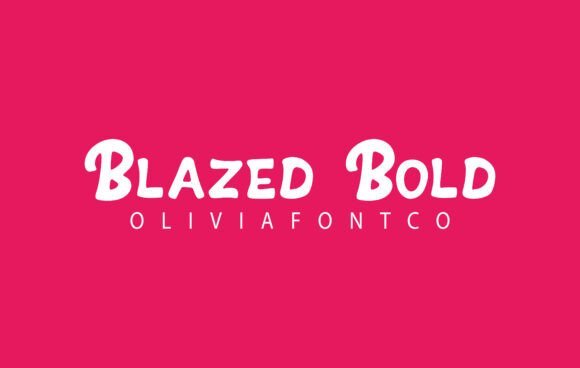
Have you ever been brainstorming a new project and suddenly, the perfect idea strikes? The words start flowing, and your imagination runs wild. That’s the magic of creating something truly special. For designers, this moment is what drives us to push the boundaries of innovation and bring our visions to life.
One essential tool that can elevate your creative ideas is the Blazed Bold Font. This authentic handwritten font is expertly designed to add a touch of romance and sophistication to your work. Whether you’re crafting magazine headlines, social media posts, or wedding invitations, the Blazed Bold Font is a valuable addition to your design arsenal.
Blazed Bold Font Key Features
- Font Family: Blazed Bold
- Character Set: Latin, Cyrillic, and Greek alphabets, with over 250 glyphs
- Font Size: Available in various sizes, including 10pt, 12pt, 14pt, 18pt, and 24pt
- Resolution: Optimized for screen display at 72 dpi, but also suitable for print at 300 dpi
- Unique Characteristics: Blazed Bold features a distinctive, hand-drawn style with bold lines and a rough texture, making it ideal for use in headings, titles, and other attention-grabbing applications.
Blazed Bold Font Review
Overall, I think Blazed Bold Font is a solid addition to any designer’s toolkit. Here are some of its strengths:
- ✨ Unique and bold design that grabs attention
- ✨ High-quality vector graphics for seamless scaling
- ✨ Supports a wide range of languages, making it a versatile option
However, I do have a few concerns:
- ⚠️ Limited font pairing options, which may make it difficult to create a cohesive look
- ⚠️ Not ideal for body text due to its bold and attention-grabbing nature
- ⚠️ Some users may find the font too over-the-top for certain designs
Overall, I’d give Blazed Bold Font 4 out of 5 stars. It’s a great choice for headings, titles, and any other design elements where you want to make a bold statement. However, it may not be the best fit for body text or more subtle designs. With a bit more font pairing flexibility and a more nuanced design, Blazed Bold Font could be a true standout.
Use Blazed Bold Font to create eye-catching headings and titles.
Pair Blazed Bold Font with a clean sans-serif font for a modern look.
Use Blazed Bold Font for:
Headings and titles in marketing materials.
Brand logos and wordmarks.
Highlighting important information in presentations and documents.